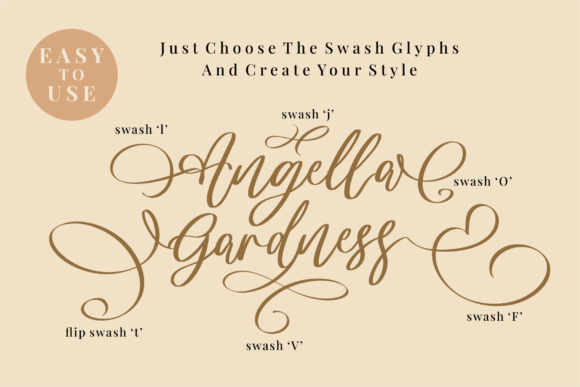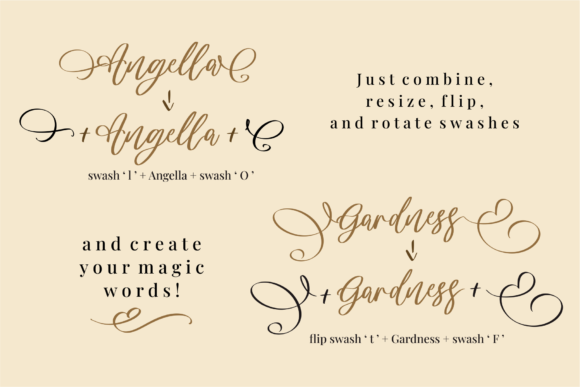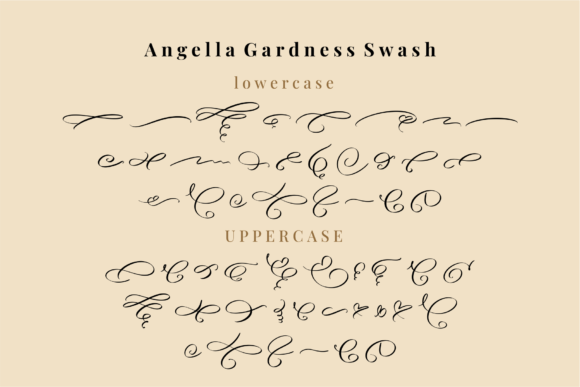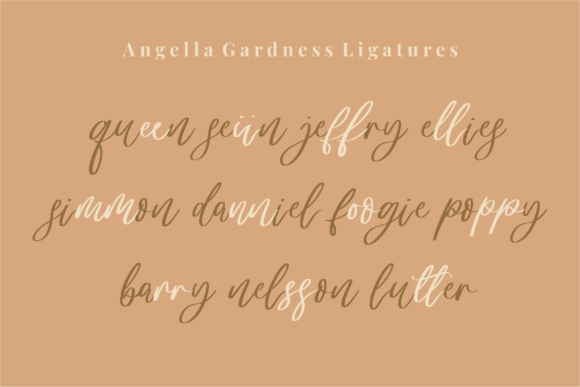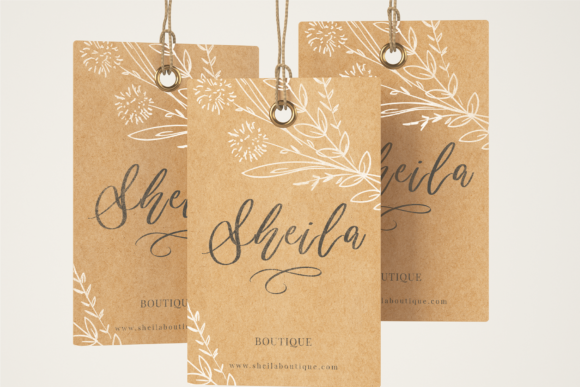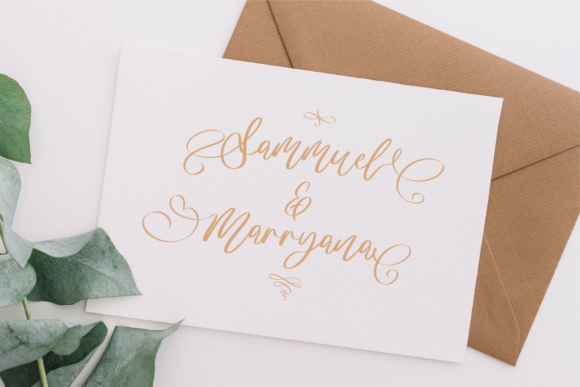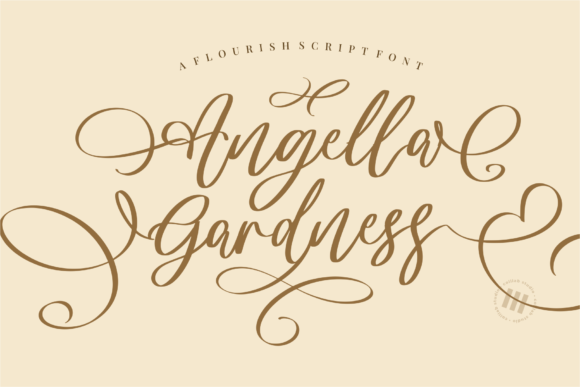
The Elegance of Angella Gardness Font: A Designer’s Delight
I’ll never forget the time I was working on a wedding invitation project, and my client asked for a font that exuded elegance and sophistication. I scoured the internet, tried out countless fonts, but nothing seemed quite right. That was until I stumbled upon Angella Gardness Font. ✨ It was love at first sight! The flowing lines, the beautiful glyphs, and the varying baseline all came together to create a truly stunning font.
- ✨ Elegant and flowing design that’s perfect for wedding invitations, thank you cards, and quotes
- ✅ Smooth lines and gorgeous glyphs that add a touch of sophistication to any design
- ✅ Stunning alternates that allow for endless creativity and customization
- ✅ Features a varying baseline that adds a touch of whimsy and personality to any design
While Angella Gardness Font is an amazing font, there are a few things to keep in mind. 🤔 For example, it can be a bit tricky to read at smaller sizes, so it’s best to use it for headlines or titles rather than body text. ⚠️ Additionally, some of the alternates can be a bit finicky, so be sure to experiment and find the ones that work best for your design.
The Backstory of Angella Gardness Font
Angella Gardness Font was designed by a talented typographer who wanted to create a font that captured the elegance and sophistication of handwritten calligraphy. The font is named after the designer’s grandmother, Angela, who was a talented gardener and lover of beautiful things. The font is a reflection of her love of nature and beauty.
| Font Name | Angella Gardness Font |
| Author | colllabstudio |
| What is Angella Gardness Font best used for? | Angella Gardness Font is best used for designs that require an elegant and sophisticated touch, such as wedding invitations, thank you cards, and quotes. |
| Is Angella Gardness Font easy to read? | Angella Gardness Font can be a bit tricky to read at smaller sizes, so it’s best to use it for headlines or titles rather than body text. |
| Does Angella Gardness Font come with any special features? | Yes, Angella Gardness Font comes with a range of special features, including OpenType features, glyphs, and stylistic alternates. |